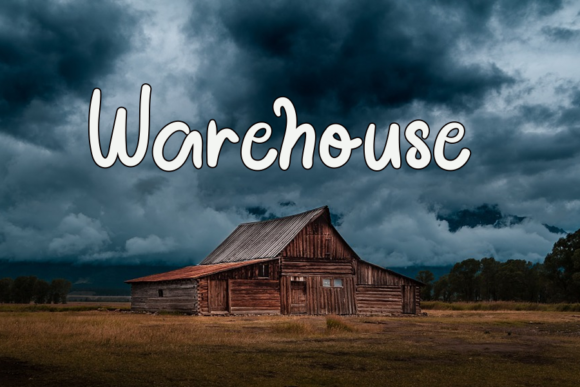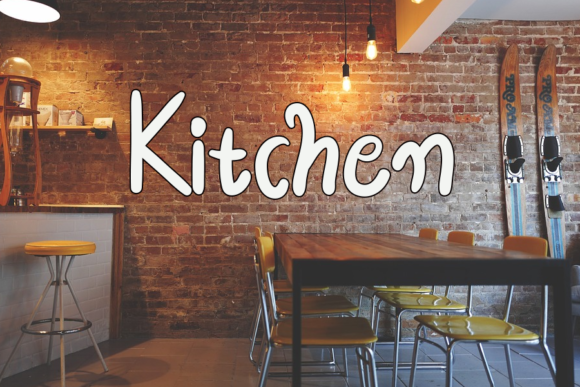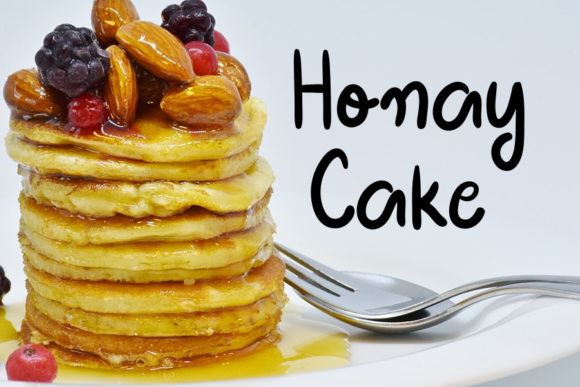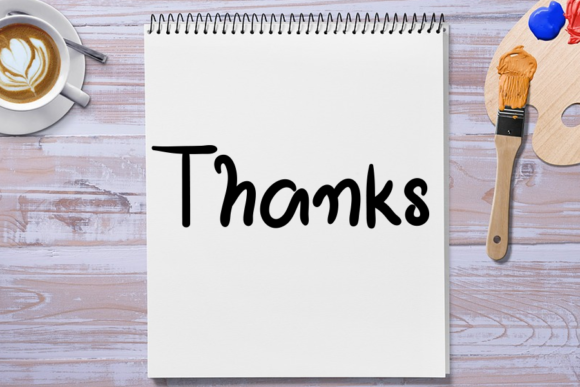
Village Font
About Village Font
Village is a simple, natural and adaptable script font. It can be used for a variety of design ideas. Add it to your formal and informal creations and it will perfectly fit them.